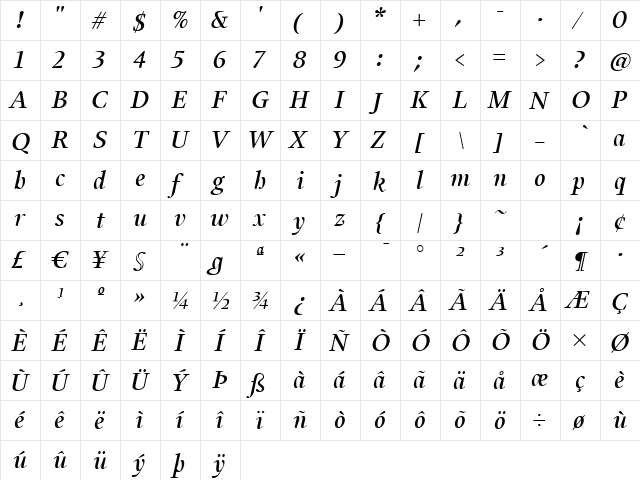
UnionMediumItalic Regular
Design Context for UnionMediumItalic Typeface
UnionMediumItalic is a composed and adaptable typeface that performs quietly and consistently across a wide range of design contexts. Its italic angle brings a sense of urgency and motion to the letterforms.
Pro Tip: Try UnionMediumItalic for annotation and caption copy alongside an upright companion — the contrast in angle creates a dynamic but ordered typographic system.